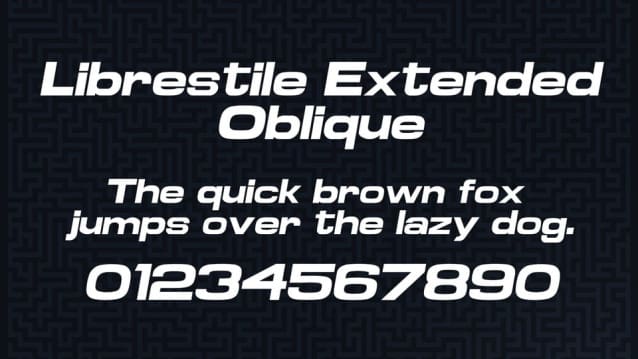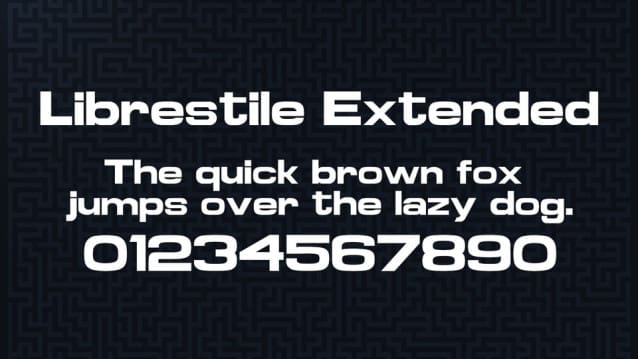
Librestile Extended Font
Librestile Extended Font is a libre equivalent for fonts like Microgramma, Eurostile or Green Mountain 3. Inspired by Michroma, and aspiring to be a Extended Bold version of it. Licensed under OFL 1.1.
This font also contains Polish characters.